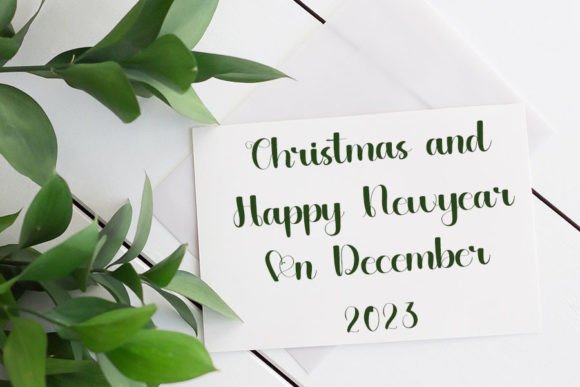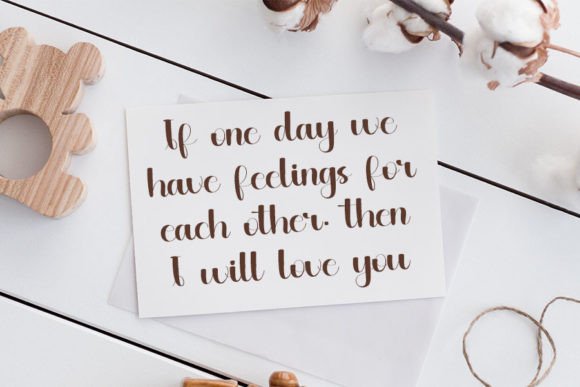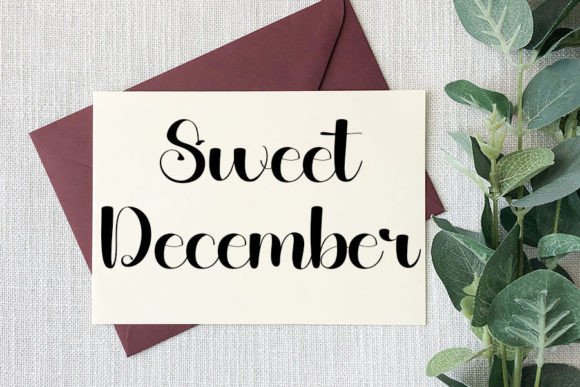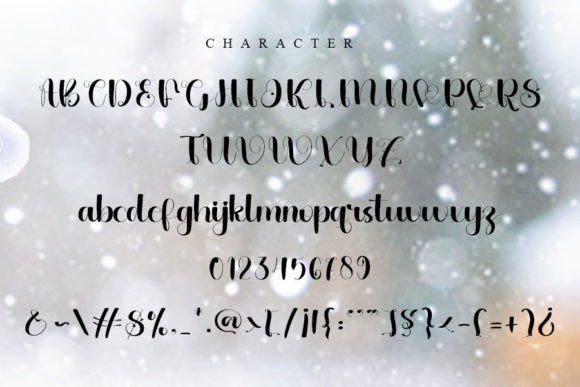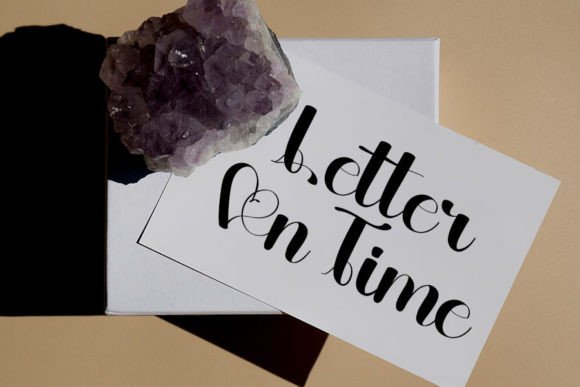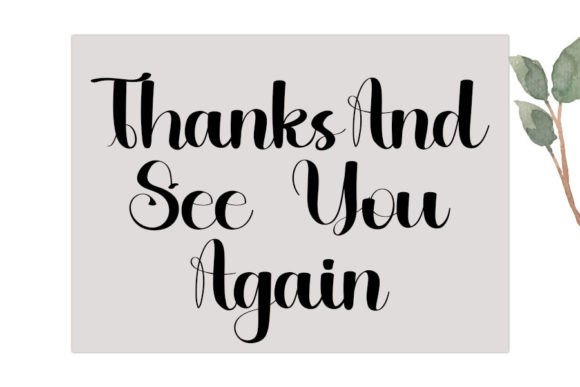
Romantic Winter Handwritten Font for Magical Seasonal Designs
If you’re looking for a charming and heartwarming typeface to elevate your winter designs, Happy Snowman is the perfect fit. This romantic winter handwritten font captures the gentle elegance of handwritten text while adding a whimsical touch inspired by cozy, snow-filled days. Whether you’re crafting holiday cards or designing a seasonal logo, Happy Snowman brings just the right emotional warmth.
Designed with care and a touch of winter magic, this font is both beautiful and highly versatile.
Discover the Allure of Happy Snowman
Happy Snowman combines soft, handwritten strokes with clean readability. As a result, it fits perfectly into a wide variety of creative applications. This romantic winter handwritten font was built to enhance both personal and commercial design work.
You can use it for:
Holiday and Christmas greeting cards
Winter wedding invitations
Social media graphics with seasonal messages
Product packaging for cozy winter goods
Handmade craft labels and tags
Blog headers, posters, and flyer titles
Its elegant letterforms add a personal, heart-touching tone to every design — ideal for the colder months when we all crave warmth and connection.
Even better, the font is PUA encoded, so all ligatures, alternate glyphs, and stylistic features are accessible right away — no need for advanced tools. That means whether you’re a hobbyist or a pro, you’ll have complete control over your creative process.
Why Designers Love Happy Snowman
Happy Snowman is more than just seasonal—it’s thoughtful, expressive, and romantic. Here’s what makes it a favorite among creators:
A soft handwritten feel with clear, balanced structure
PUA encoding for full creative access
Easy to pair with both minimalist and decorative design elements
Suitable for both print and digital formats
Adds emotional value to any winter-themed project
This romantic winter handwritten font brings a feeling of closeness and elegance, perfect for anyone wanting to evoke genuine emotion through their work.
Ideal for Holidays, Gifts, and Crafting Season
Happy Snowman works especially well for:
Etsy sellers launching winter collections
Designers building seasonal branding packages
Content creators and bloggers with winter campaigns
DIYers crafting heartfelt gifts or décor
Businesses looking to add a romantic winter vibe to their materials
With its delicate yet distinct presence, it helps your message stand out while remaining intimate and stylish.
Happy Snowman brings the magic of winter into every letter. This romantic winter handwritten font is soft, expressive, and beautifully readable — the perfect match for emotional, elegant, and seasonal design work. If you’re ready to bring warmth and personality into your winter visuals, Happy Snowman is a font worth downloading.